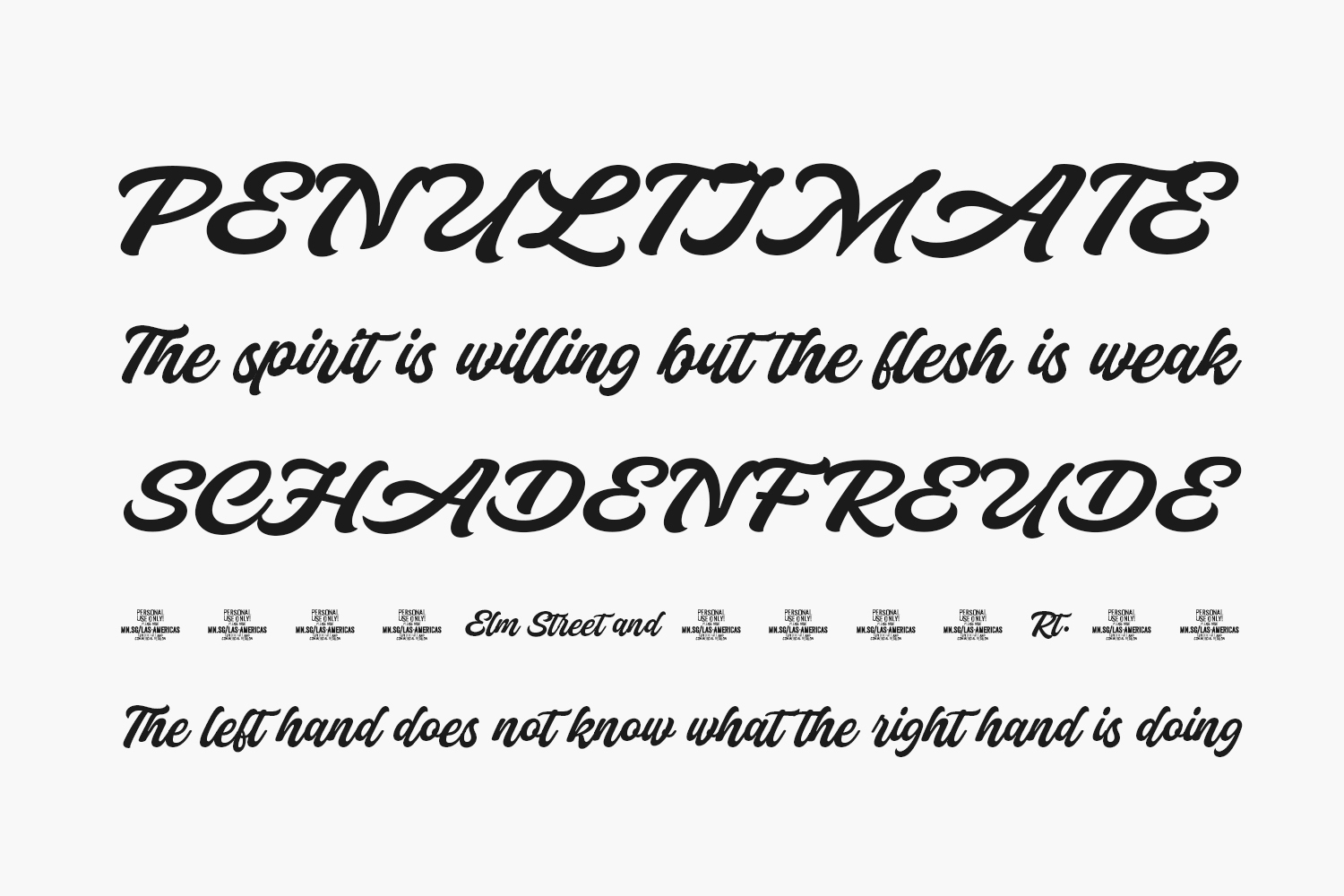
Las Americas – Free Bold Script Font with Lively Latin‑American Spirit
Las Americas is a bold script typeface created by Måns Grebäck, radiating the vibrant energy of Latin American street art and festive banners. Its thick brush-like strokes and rhythmic flow evoke confidence and creativity—ideal for expressive logos, headlines, posters, and branding. The personal-use OTF version is free to download; for commercial licensing, visit Mans Grebäck’s official site.
- Vibrant Brush Script: Dynamic heavy strokes and flowing swashes that bring movement and personality.
- Customizable Swashes: Use underscores in text (e.g. Amer_icana) to generate extended decorative swashes.
- Expressive & Handcrafted: Feels authentic and artistic—a perfect match for cultural, retro, or festive design themes.
- Comprehensive Language Support: Covers Latin-based languages globally, with full glyph set including punctuation and numerals.
- OpenType Features: Includes ligatures, contextual alternates, stylistic variants for detailed control.
- Logos & Branding: Eye-catching identity design for cultural, festival, or street-style brands.
- Posters & Event Graphics: Perfect for music events, cultural festivals, murals, and activist art.
- Editorial & Titles: Great for magazine headlines, book covers, and bold print layouts.
- Social Media & Web Headers: Energetic overlays for Instagram posts, banners, or YouTube thumbnails.
- Packaging & Merchandise: Adds festive flair to product labels, merch graphics, or custom apparel.
Use run-together words with underscores to enable decorative swashes, especially for logos or headlines. Pair Las Americas with clean sans-serifs like Montserrat or Open Sans to balance its boldness. Bright color schemes—turquoise, coral, sunshine yellow—or mural-style textures amplify its cultural vibe. Use it at larger sizes (≥36pt) to emphasize its fluid stroke detail.
- Glyph Set: ~838 glyphs (uppercase, lowercase, numerals, punctuation, symbol support).
- Language Support: Broad Latin coverage (Latin Extended‑A, punctuation, numerals; supports Western, Central, Latin‑American languages).